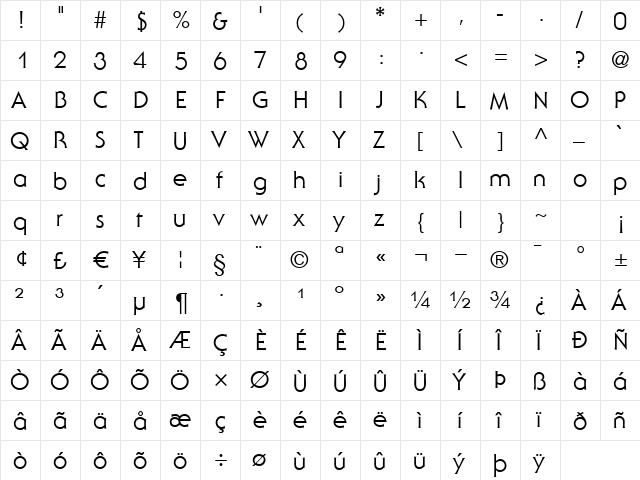
SerenadeTwo Regular
Design Context for SerenadeTwo Typeface
SerenadeTwo takes a measured approach to typography — its balanced proportions and neutral character make it a reliable workhorse for both digital and print work.
Pro Tip: Use SerenadeTwo in both headline and body roles to test its range before committing to a single application.